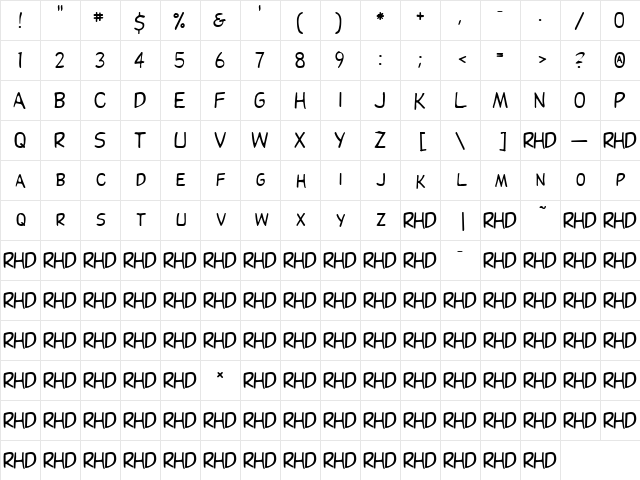
Mister Regular
Design Context for Mister Typeface
Mister is a composed and adaptable typeface that performs quietly and consistently across a wide range of design contexts.